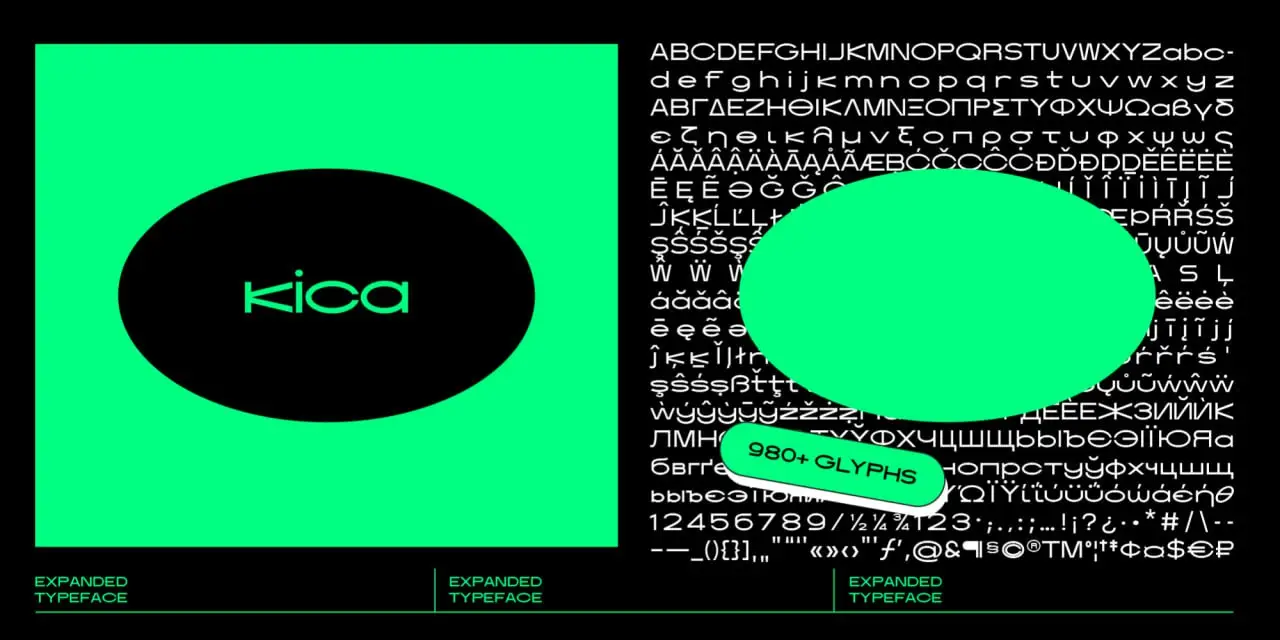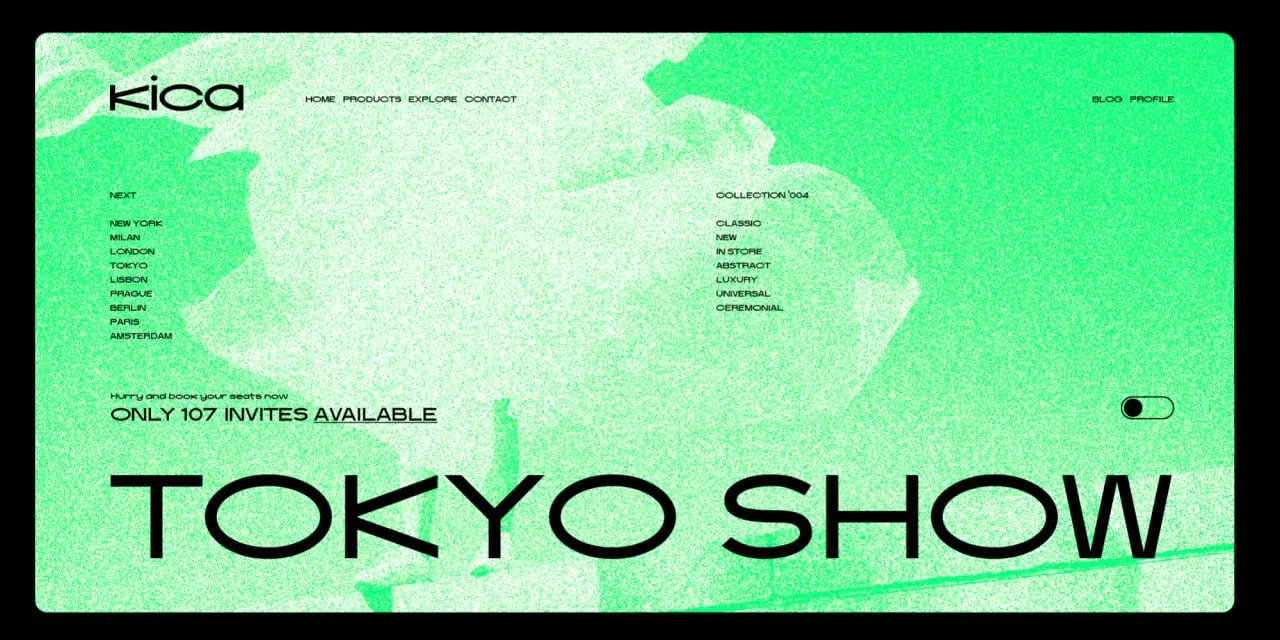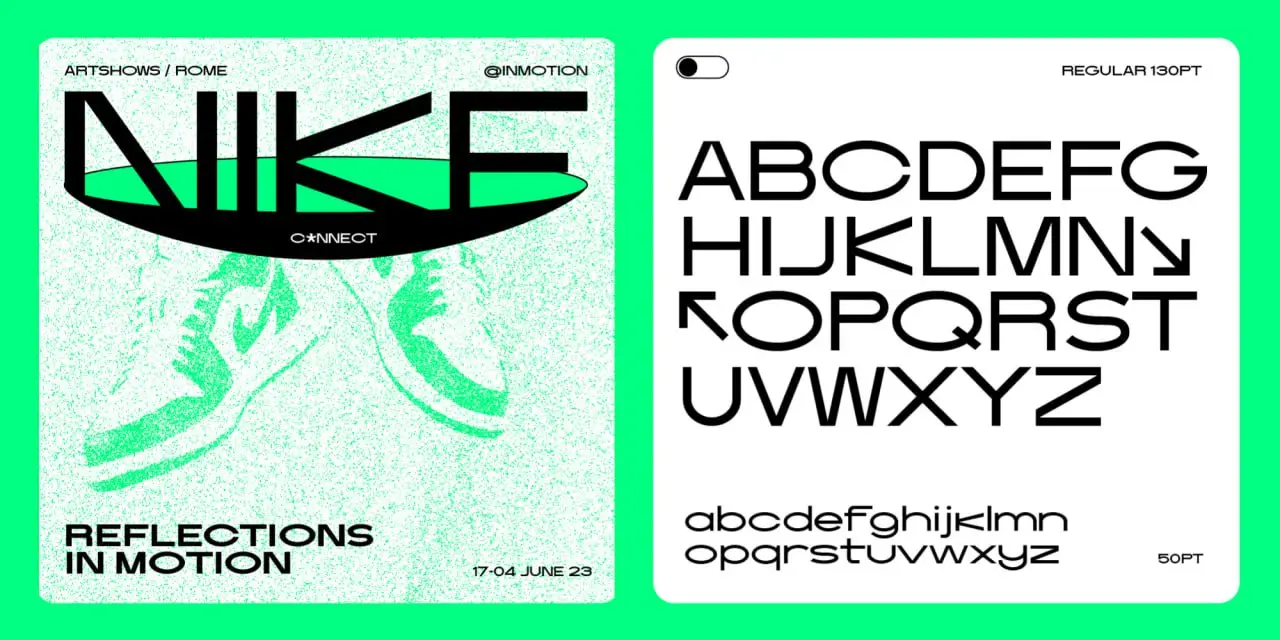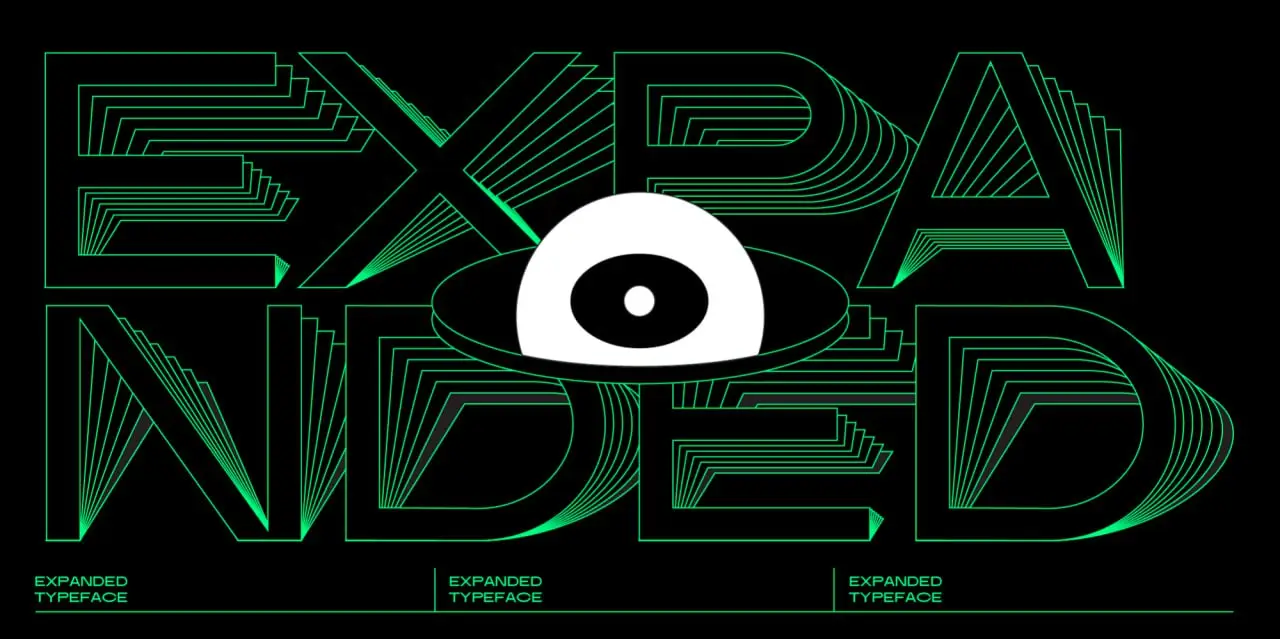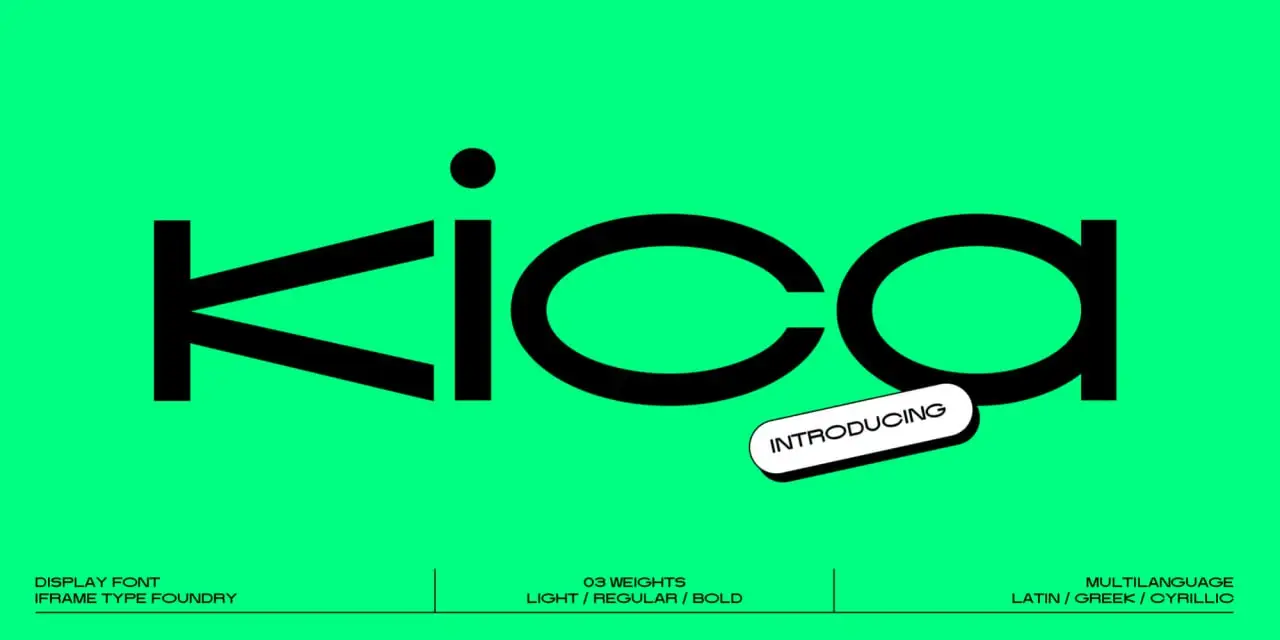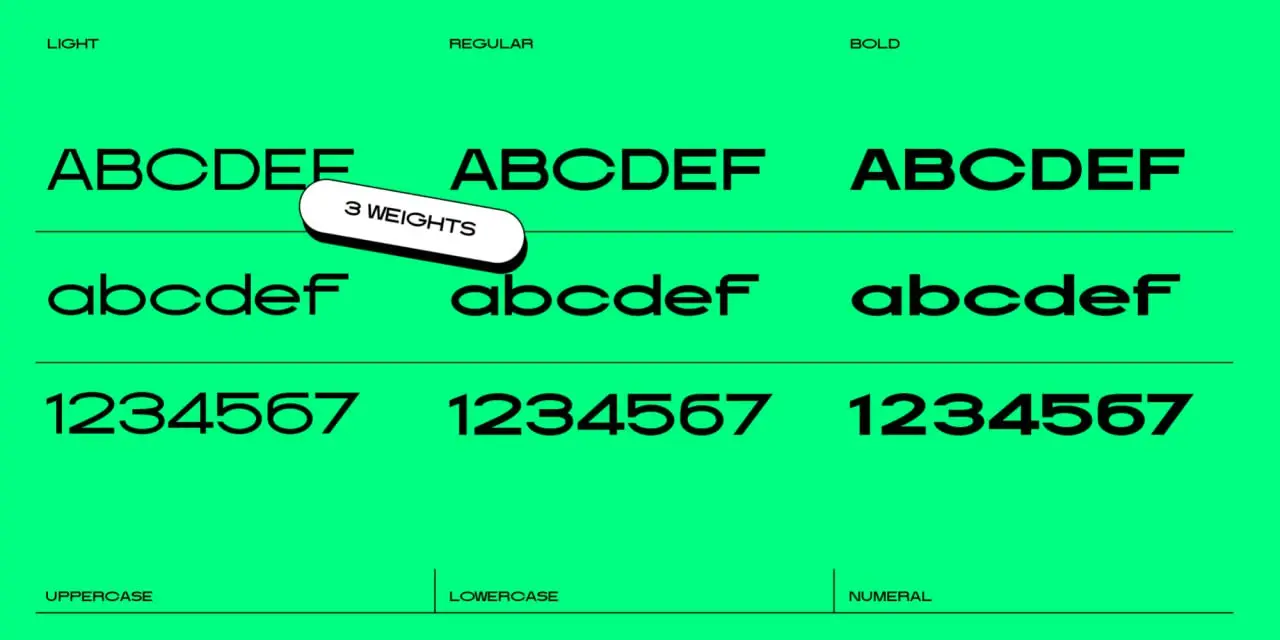
Kica Display Font Family
The Kica Display Font Family is a versatile and stylish typeface designed for impactful visual communication. With its unique character shapes and a range of weights, this font family is perfect for creating eye-catching headlines, branding materials, and promotional graphics.
• Multiple weights for diverse applications
• Distinctive letterforms that stand out
• Supports a wide range of languages
• Easy to read, making it suitable for both print and digital media
• Ideal for branding, logos, and marketing materials
• Use in web design for striking headings and calls to action
• Perfect for print projects like posters and flyers